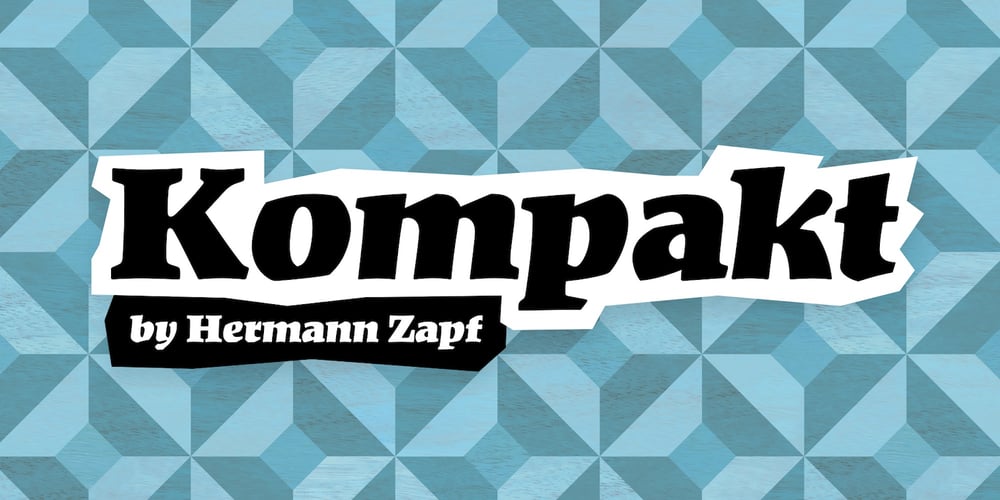
Kompakt Font Family was designed by Hermann Zapf and published by Linotype. Kompakt contains 1 styles and family package options. Kompakt is one of the early typefaces of type designer Hermann Zapf, whose Palatino has long been a standard in almost every area of application. Kompakt consists of a single weight and was designed in 1952, two years after Palatino. It was produced by the foundry D. Stempel AG in Frankfurt am Main, Germany, where Zapf was at the time in the artistic department. The figures of this extremely strong and heavy typeface are decidedly those of a broad tipped pen. When enlarged, the sharp outlines of the characters can be clearly seen.The unique dynamic of the alphabet is a result of its strong serifs, which on the lower case letters almost connect the letters in a line. Together with the slight slant to the right, this gives Kompakt the character of handwriting, making it look like it is always striving to go forward. Kompakt is an excellent choice for advertisements, especially for posters which should display a hint of nostalgia, and should be used only in headlines.